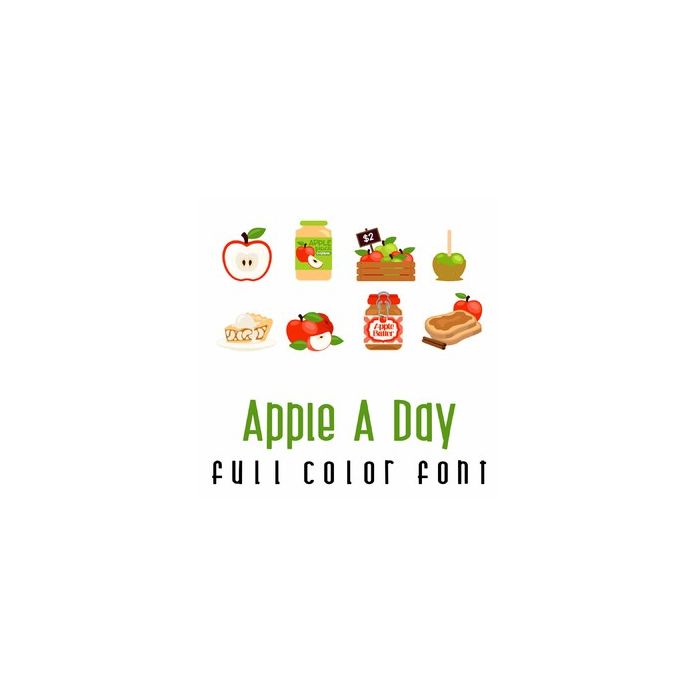
This adorable full-color doodlebat font features 26 fall Apples images and treats. Perfect for cards, crafts, gifts, decor, scrapbook pages, planner stickers, and more!